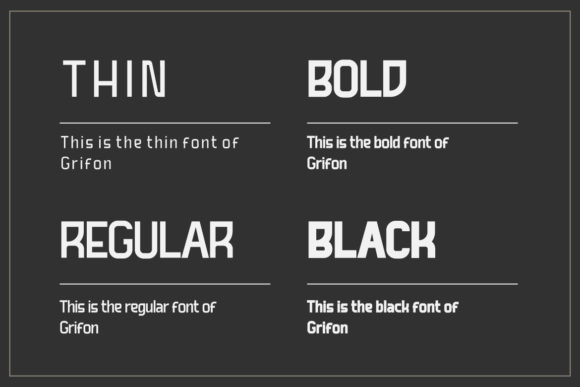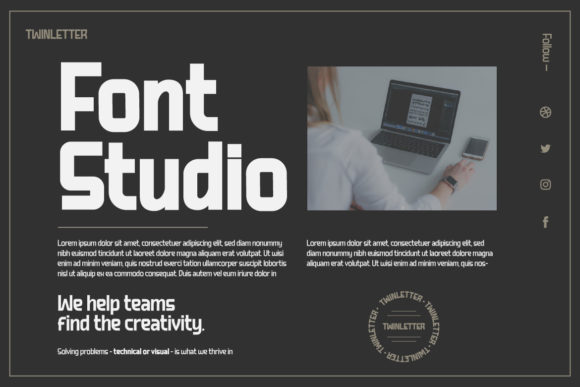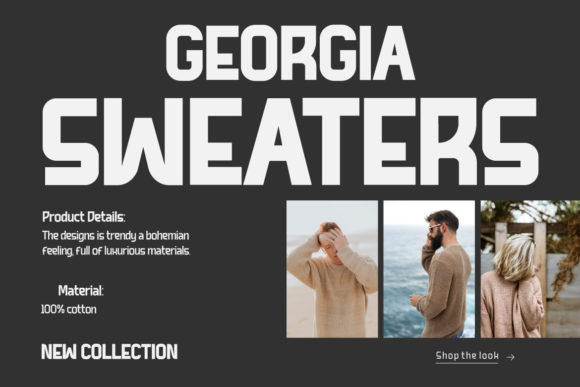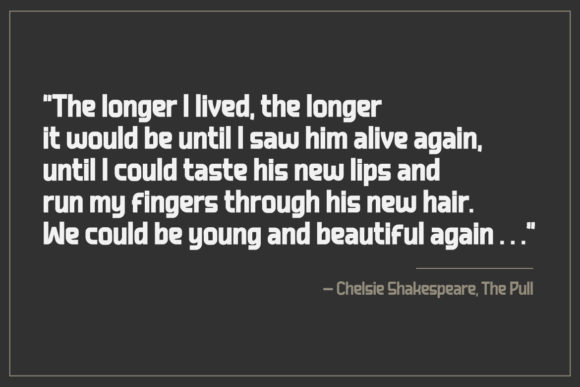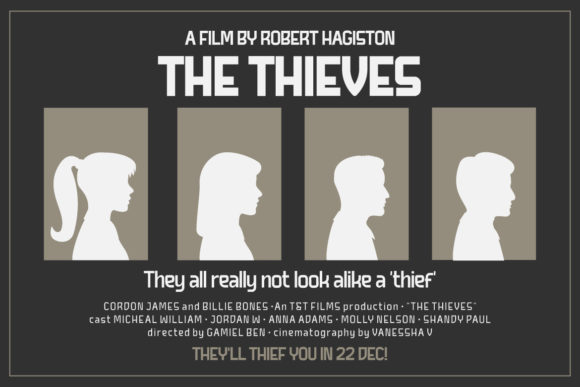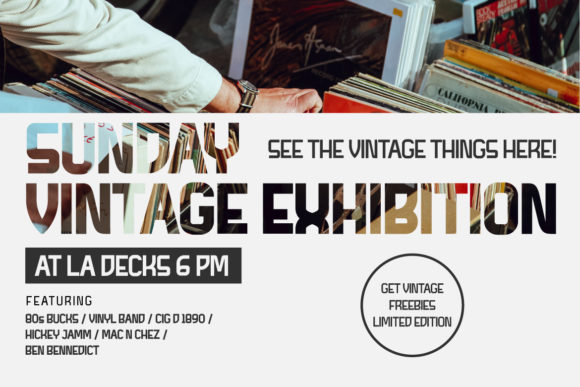
Introducing Grifon Font: The Ultimate Display Font for Bold Creations
Are you tired of using the same old fonts for your designs? Look no further! Grifon Font is here to revolutionize your typography with its cool, bold, and thick lettered style. This display font is perfect for designers and crafters who want to elevate their creations and make a statement. In this article, we’ll dive into the features and benefits of Grifon Font, and explore how it can become an incredible asset to your font library.
The Power of Grifon Font
Grifon Font is a game-changer for anyone looking to add a touch of boldness and sophistication to their designs. Its thick lettering and cool aesthetic make it perfect for a wide range of projects, from posters and flyers to logos and branding materials. Whether you’re working on a personal project or a client’s, Grifon Font is sure to impress.
One of the standout features of Grifon Font is its versatility. It can be used for a variety of topics and themes, from modern and edgy to vintage and rustic. The font’s bold and thick lettering ensures that it will always stand out, making it perfect for headlines, titles, and other display text.
Key Features of Grifon Font
- Cool and Bold Design: Grifon Font features a unique and stylish design that’s sure to turn heads.
- Thick Lettering: The font’s thick lettering makes it perfect for display text and headlines.
- Versatile: Grifon Font can be used for a wide range of projects and themes.
- Easily Readable: Despite its bold design, Grifon Font is easy to read, even at smaller sizes.
Benefits of Using Grifon Font
So why should you choose Grifon Font for your next project? Here are just a few benefits of using this amazing display font:
- Adds Visual Impact: Grifon Font’s bold and thick lettering ensures that your designs will grab attention and make a statement.
- Elevates Your Brand: Using a unique and stylish font like Grifon can help elevate your brand and make it more memorable.
- Saves Time: With Grifon Font, you can create professional-looking designs in no time.
- Perfect for Display Text: Grifon Font is specifically designed for display text, making it perfect for headlines, titles, and other prominent text.
- Experiment with Different Sizes: Grifon Font looks great at a variety of sizes, so don’t be afraid to experiment and find the perfect size for your project.
- Pair with Other Fonts: Grifon Font pairs well with a variety of other fonts, so try combining it with other fonts to create a unique look.
- Use for Display Text: Grifon Font is specifically designed for display text, so use it for headlines, titles, and other prominent text.
In conclusion, Grifon Font is an incredible asset to any font library. Its cool, bold, and thick lettered design makes it perfect for a wide range of projects, from posters and flyers to logos and branding materials. With its versatility, ease of use, and visual impact, Grifon Font is sure to elevate your designs and make a statement. So why wait? Download Grifon Font today and start creating bold and beautiful designs!